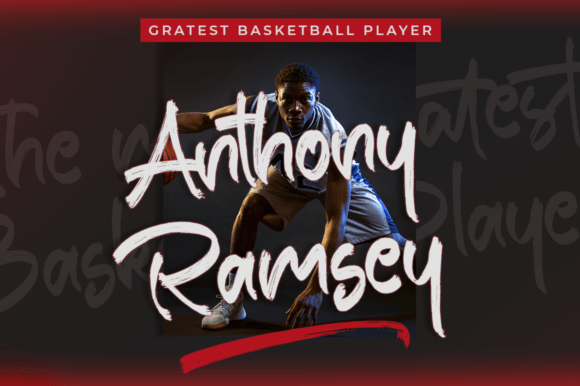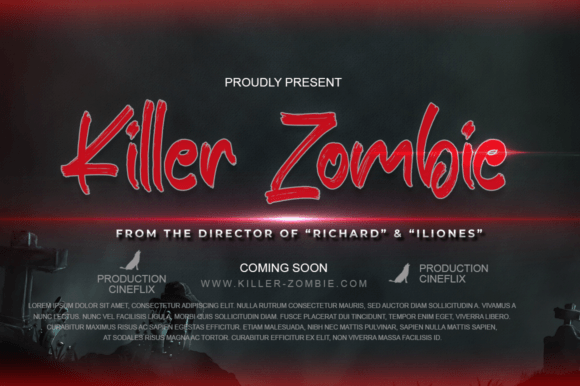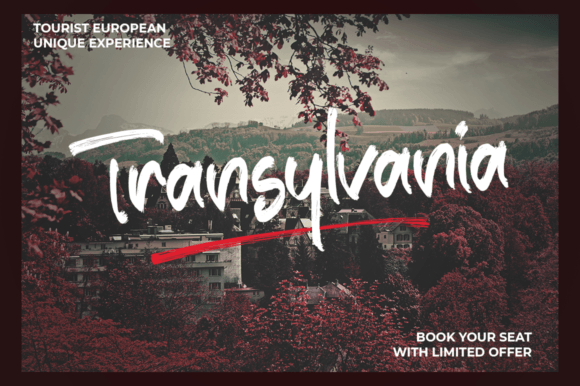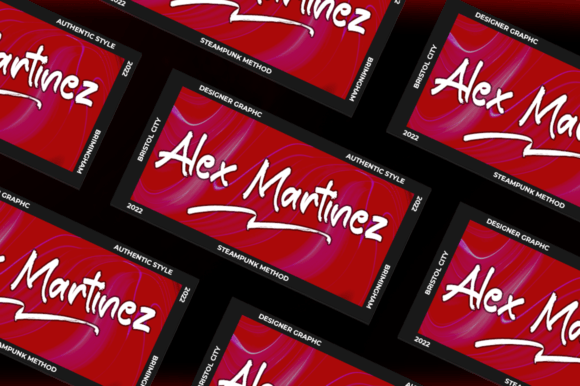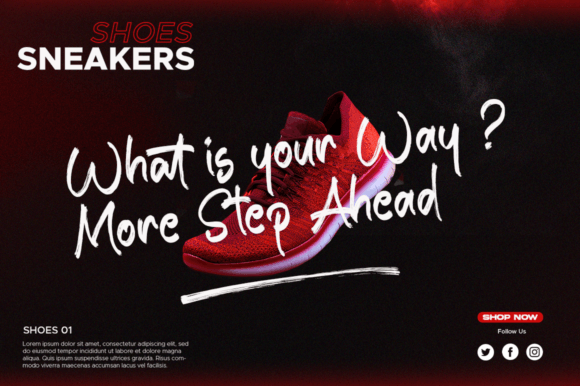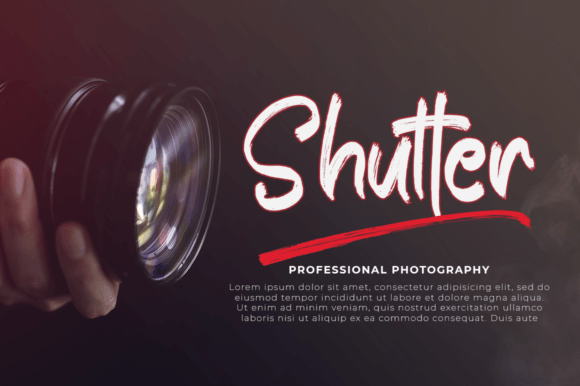
Beyonder Font: Elevate Your Designs with a Stylish and Bold Brushed Display Font
Are you tired of using the same old fonts for your design projects? Look no further than the Beyonder Font, a gorgeous and bold brushed display font that’s sure to give your headlines and logotype projects a stylish touch. With its strong, confident, and dynamic appearance, this font is perfect for designers and crafters looking to add a touch of nostalgia to their work.
What Makes Beyonder Font So Special?
Beyonder Font is a carefully crafted font that’s designed to make a statement. Its bold, brushed texture gives it a unique and eye-catching appearance that’s sure to grab attention. Whether you’re working on a logo, headline, or any other design project, this font is sure to add a touch of style and sophistication.
One of the standout features of Beyonder Font is its PUA encoding. This means that you can access all of the amazing glyphs and ligatures with ease, giving you even more creative freedom to experiment with different designs. With PUA encoding, you can easily access:
- Alternate characters and glyphs
- Ligatures and swashes
- Special characters and ornaments
This level of flexibility makes Beyonder Font an excellent choice for designers who want to push the boundaries of their creativity.
The Benefits of Using Beyonder Font
So why should you choose Beyonder Font for your design projects? Here are just a few benefits of using this amazing font:
- Unique and eye-catching appearance: Beyonder Font’s bold, brushed texture gives it a one-of-a-kind look that’s sure to grab attention.
- Flexibility and creativity: With PUA encoding, you have access to a wide range of glyphs and ligatures, giving you the freedom to experiment with different designs.
- Nostalgic character: Beyonder Font has a distinctly retro feel that’s perfect for designers looking to add a touch of nostalgia to their work.
- Easy to use: This font is designed to be easy to use, even for designers who are new to working with fonts.
Who Can Benefit from Using Beyonder Font?
Beyonder Font is an excellent choice for a wide range of designers and crafters, including:
- Graphic designers: Whether you’re working on a logo, brochure, or any other graphic design project, Beyonder Font is a great choice.
- Logotype designers: This font is perfect for creating custom logotypes that are both stylish and memorable.
- Crafters and scrapbookers: Beyonder Font is a great choice for crafters and scrapbookers looking to add a touch of personality to their projects.
- Digital artists: This font is also a great choice for digital artists looking to add a touch of realism to their work.
To get the most out of Beyonder Font, be sure to experiment with different design techniques, such as:
- Mixing and matching glyphs: Use the PUA encoding to mix and match different glyphs and ligatures to create unique and eye-catching designs.
- Adjusting font sizes and colors: Experiment with different font sizes and colors to add depth and interest to your designs.
- Adding textures and effects: Add textures and effects to your designs to give them a more realistic and dynamic appearance.
Beyonder Font is a stunning and versatile brushed display font that’s perfect for designers and crafters looking to add a touch of style and nostalgia to their work. With its PUA encoding and bold, brushed texture, this font is sure to elevate your designs and give them a unique and eye-catching appearance.